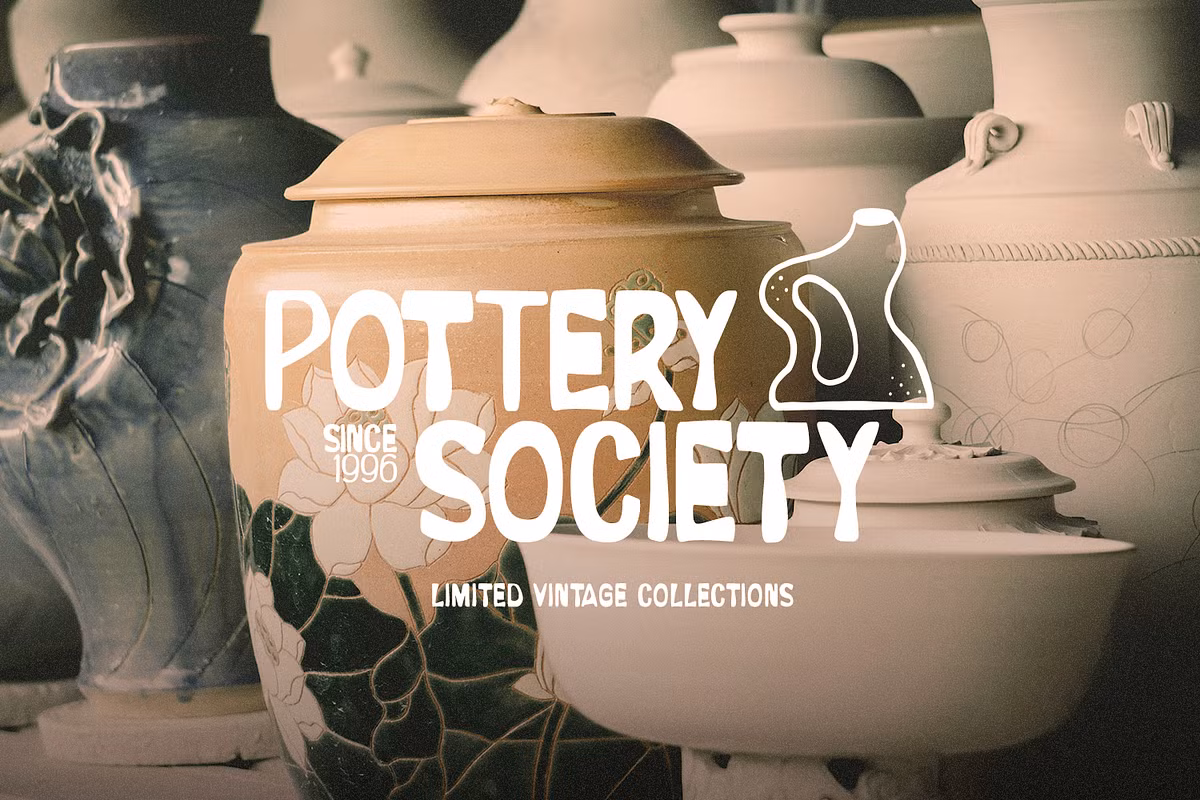
Watterlime: Vintage Handwritten Font for Timeless Design
Introduction to Watterlime
Watterlime is a one-of-a-kind handwritten font that takes its cue from traditional vintage lettering styles. It’s meant to bring back memories and give off a charming vibe, which makes it perfect for projects that need a classic feel. The font is bold and has some intentional imperfections, giving it great visibility and a personal touch that’s often lacking in digital fonts. This unique combination of old-school style and human-like imperfections makes Watterlime a great choice for anyone looking to add some character to their design.
Whether you’re working on a project that needs a touch of nostalgia or just want to add some personality to your text, Watterlime is definitely worth considering. Its classic look and feel are sure to evoke feelings of warmth and familiarity, making it an excellent option for designs that aim to connect with people on a deeper level.
Watterlime font in a vintage design context
Watterlime font showcasing its vintage charm
Design Style of Watterlime
Watterlime’s design is all about old-school style, with a hint of nostalgia. The letters are carefully made to look a bit rough around the edges, like they were written by hand. This gives Watterlime a unique feel that sets it apart from more traditional fonts. The little imperfections and uneven lines make it look really authentic and friendly, which can add a lot of character to your designs.
Overall, Watterlime is a great choice if you want to give your work a warm, personal touch. When you use Watterlime, you’re not just selecting a font; you’re choosing a design element that carries the weight of history and character. The bold weight of the font ensures that your text commands attention, making it perfect for headlines, logos, and promotional materials.
Characteristics of Watterlime
Watterlime is more than just looks; it’s also loaded with features that make it really useful and easy to work with.
• Contextual Alternates: This feature allows for variations in letterforms, enhancing the handwritten quality of the text.
• Multilingual Support: Watterlime supports various languages, making it a versatile choice for international projects.
• PUA Encoded: This enables easy access to special characters and glyphs that can elevate your design further.
• Numerals and Punctuations: Watterlime includes a full set of numerals and punctuation marks, ensuring that your designs are complete and cohesive.
Close-up of Watterlime font features
Features that enhance the usability of Watterlime
Use Cases for Watterlime
Watterlime is a versatile font that can be utilized in a variety of design contexts. Here are some of the most popular use cases:
• Logos: The unique character of Watterlime makes it an excellent choice for branding. A logo designed with this font can capture the essence of your brand while standing out in a crowded market.
• Quotes: Whether for social media graphics or print materials, Watterlime adds a personal touch to inspirational quotes, enhancing their emotional impact.
• Posters: Watterlime’s bold weight makes posters stand out and stick in people’s minds.
• Branding Materials: From business cards to letterheads, Watterlime can provide a consistent and appealing look across all your branding materials.
Pairing Suggestions for Watterlime
To maximize the impact of Watterlime, consider pairing it with complementary typefaces. Here are some suggestions:
• Serif Fonts: Pair Watterlime with a classic serif font like Garamond or Baskerville for a balanced aesthetic.
• Sans-Serif Fonts: For a fresh look, try pairing Watterlime with a simple sans-serif font like Helvetica or Futura to maintain readability.
• Script Fonts: Consider pairing Watterlime with another script font, ensuring the second font is lighter to avoid visual competition.
Examples of font pairings with Watterlime
Effective font pairings to complement Watterlime
Watterlime is a really nice handwritten font that combines old-style charm with a modern touch. It’s pretty bold and has a one-of-a-kind design, making it perfect for all sorts of projects, like branding and personal stuff. This font has some great features, such as special alternates that change depending on the context and support for many languages.
That’s why Watterlime is more than just a font – it’s a super useful tool for any designer. Whether you’re making logos, posters, or anything else, Watterlime can help you create a look that’s timeless and really speaks to your audience. So, have fun using Watterlime and see how it can bring some creativity to your designs!
Watterlime font showcased in various design applications
Watterlime in action across different design formats